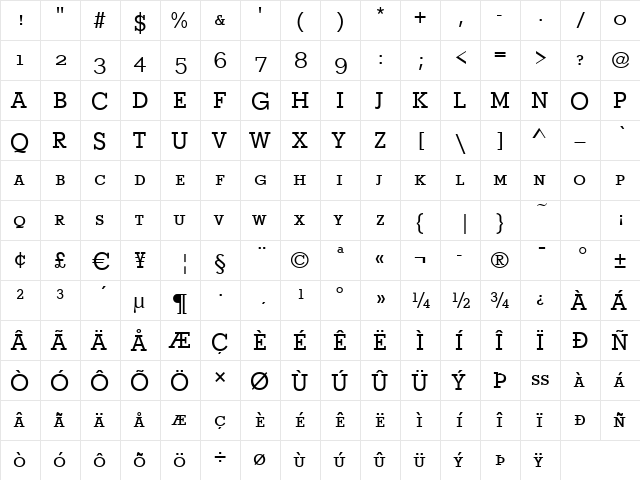
Stymie-Caps Regular
Design Context for Stymie-Caps Typeface
Stymie-Caps takes a measured approach to typography — its balanced proportions and neutral character make it a reliable workhorse for both digital and print work.